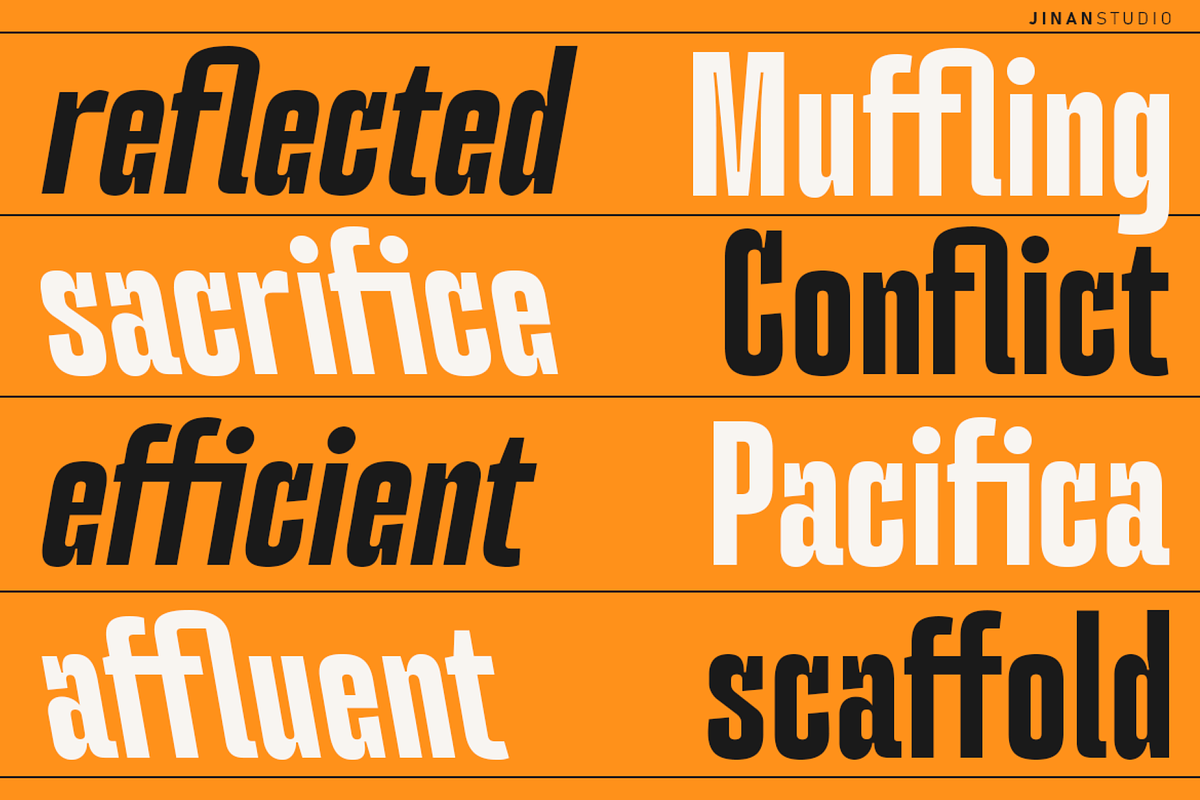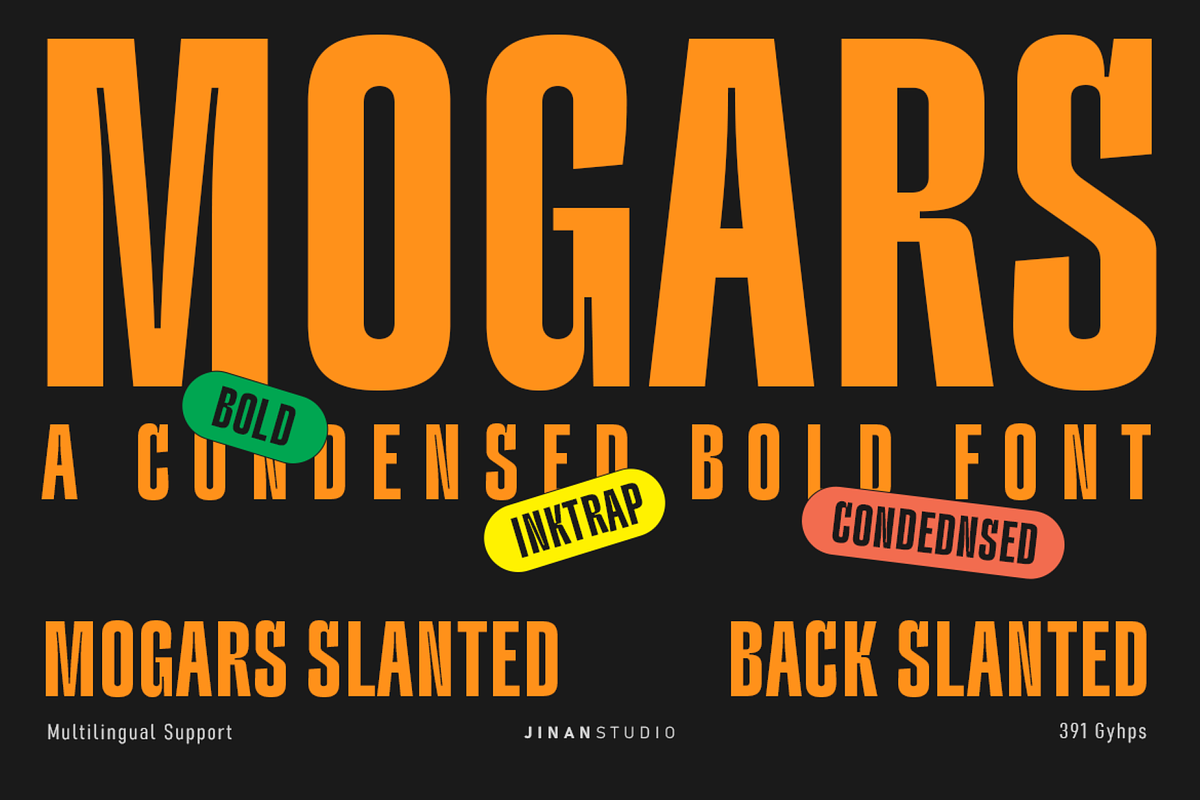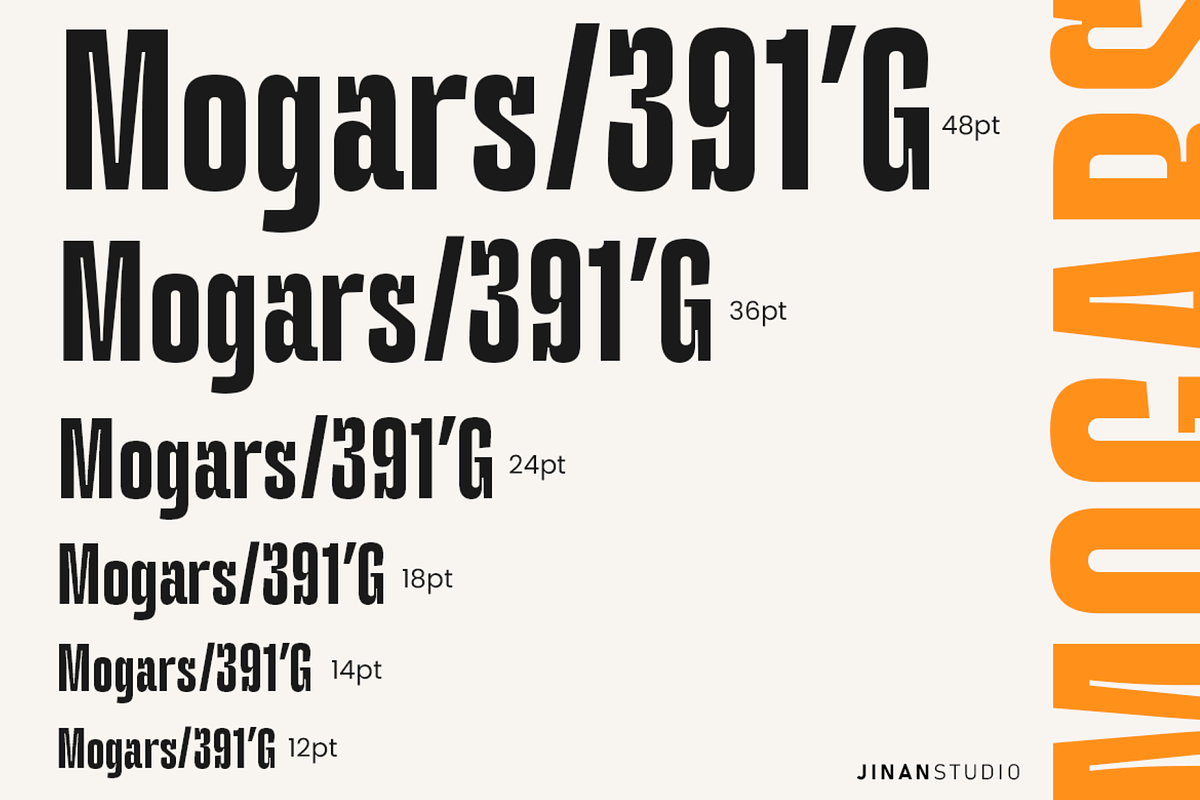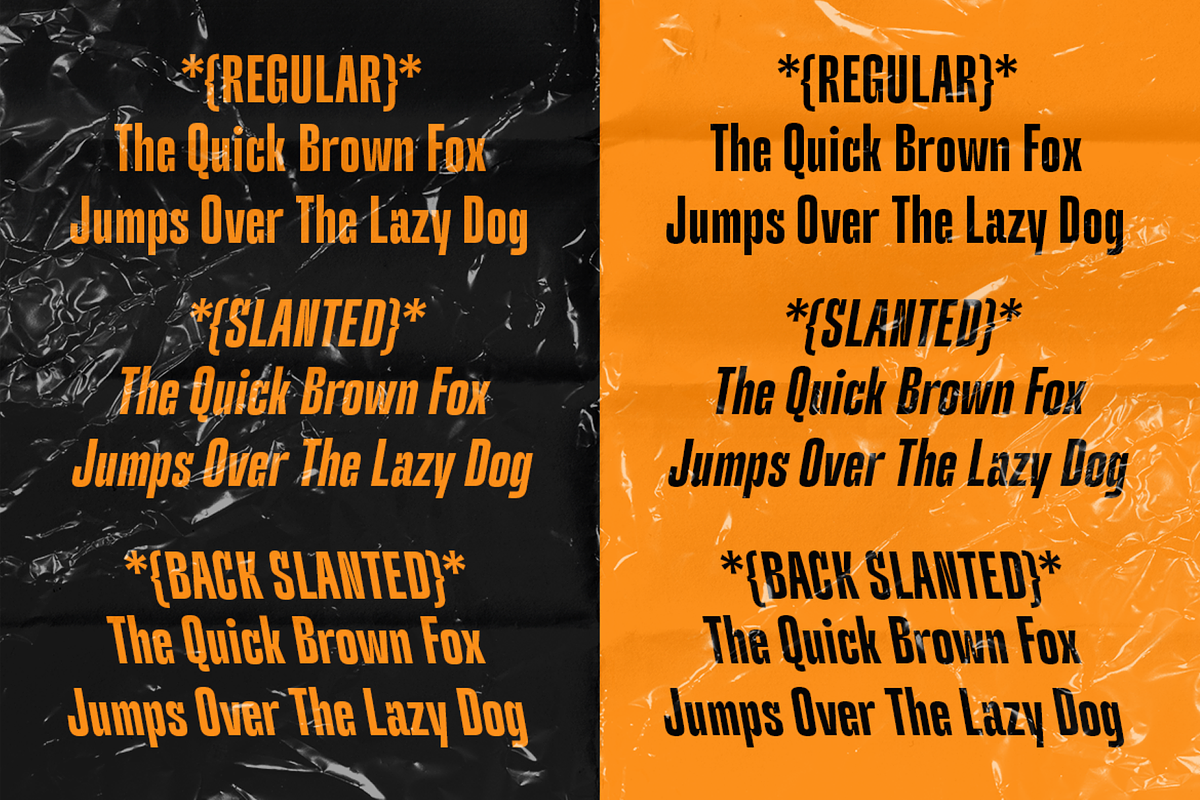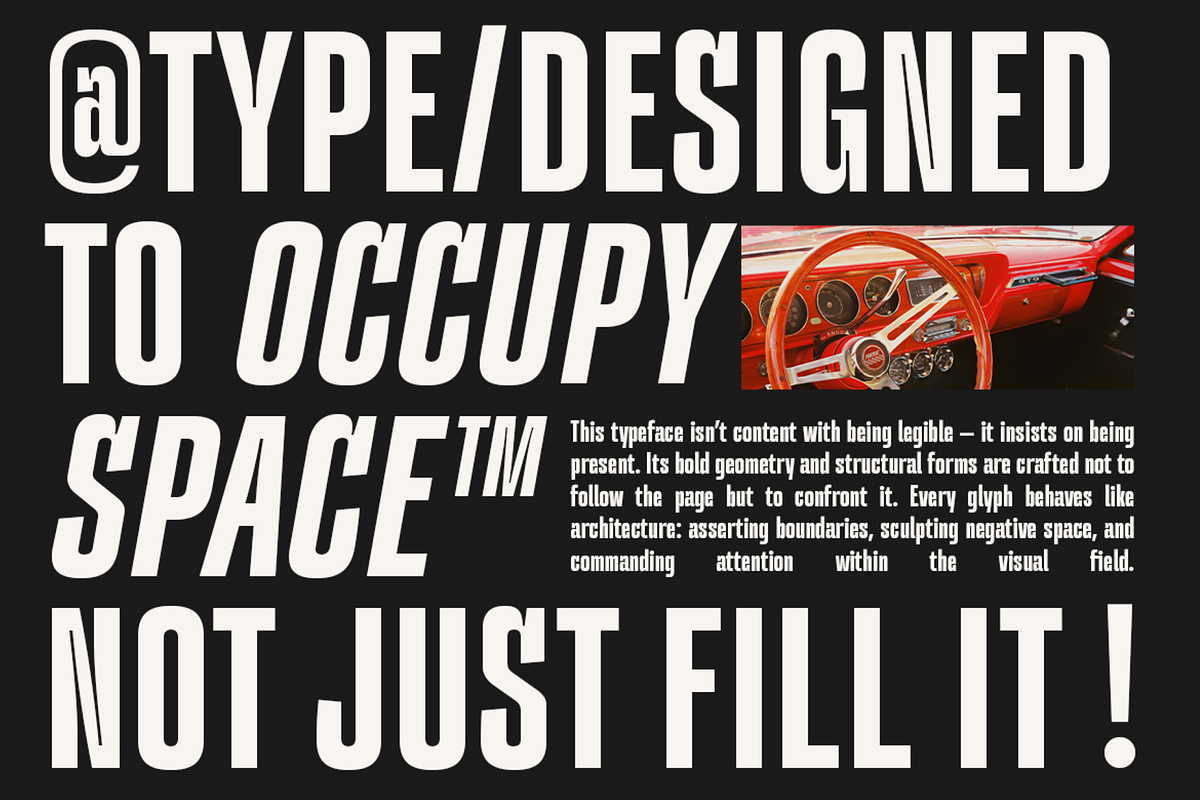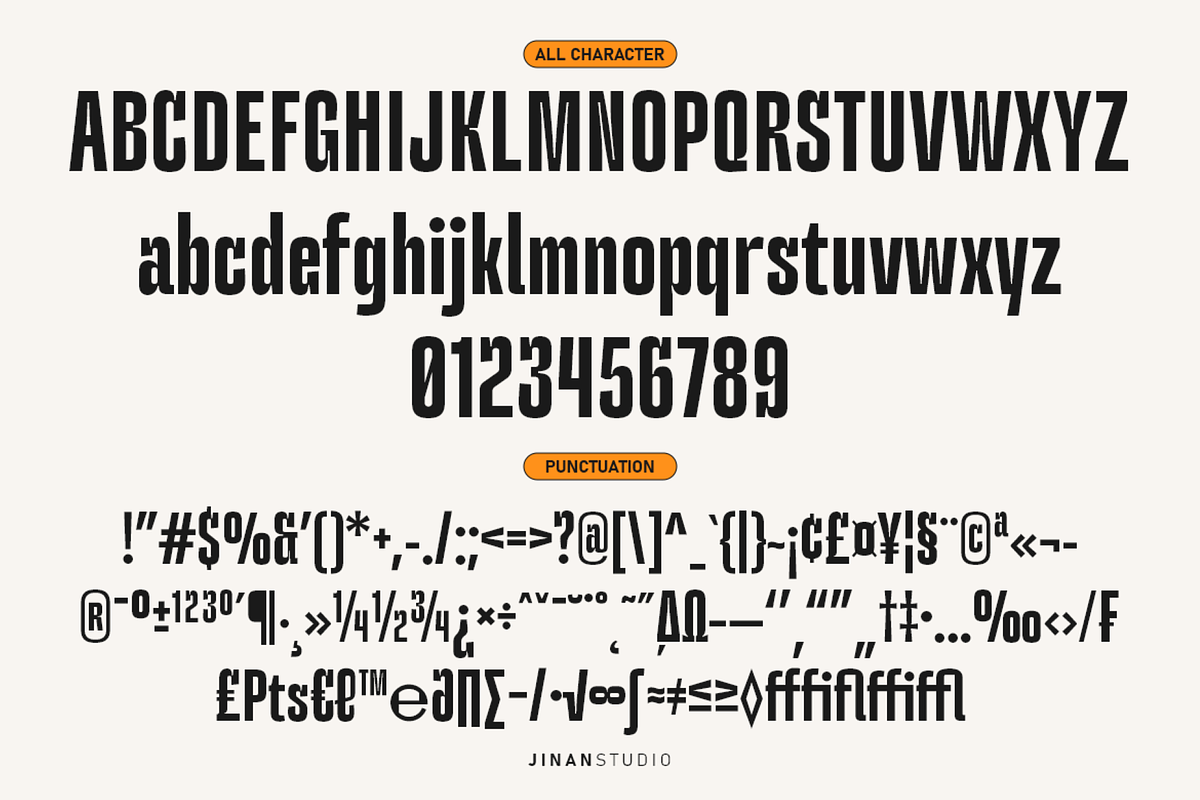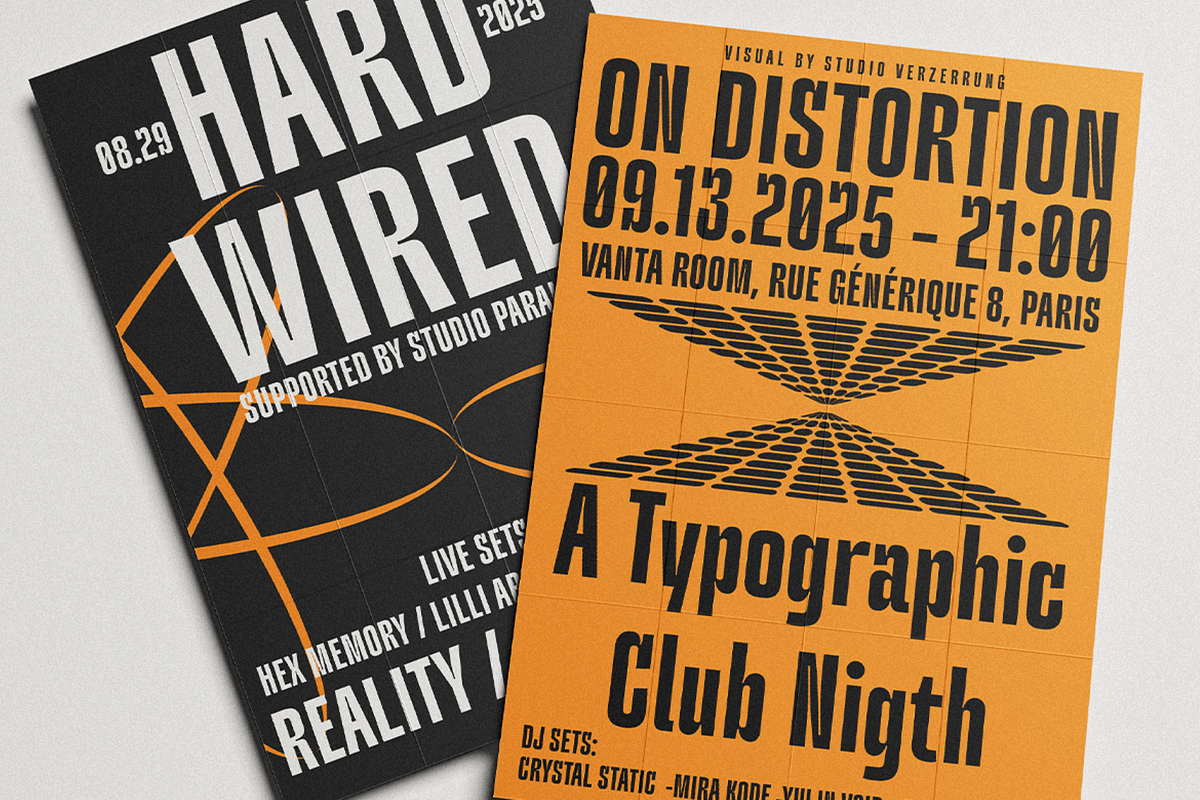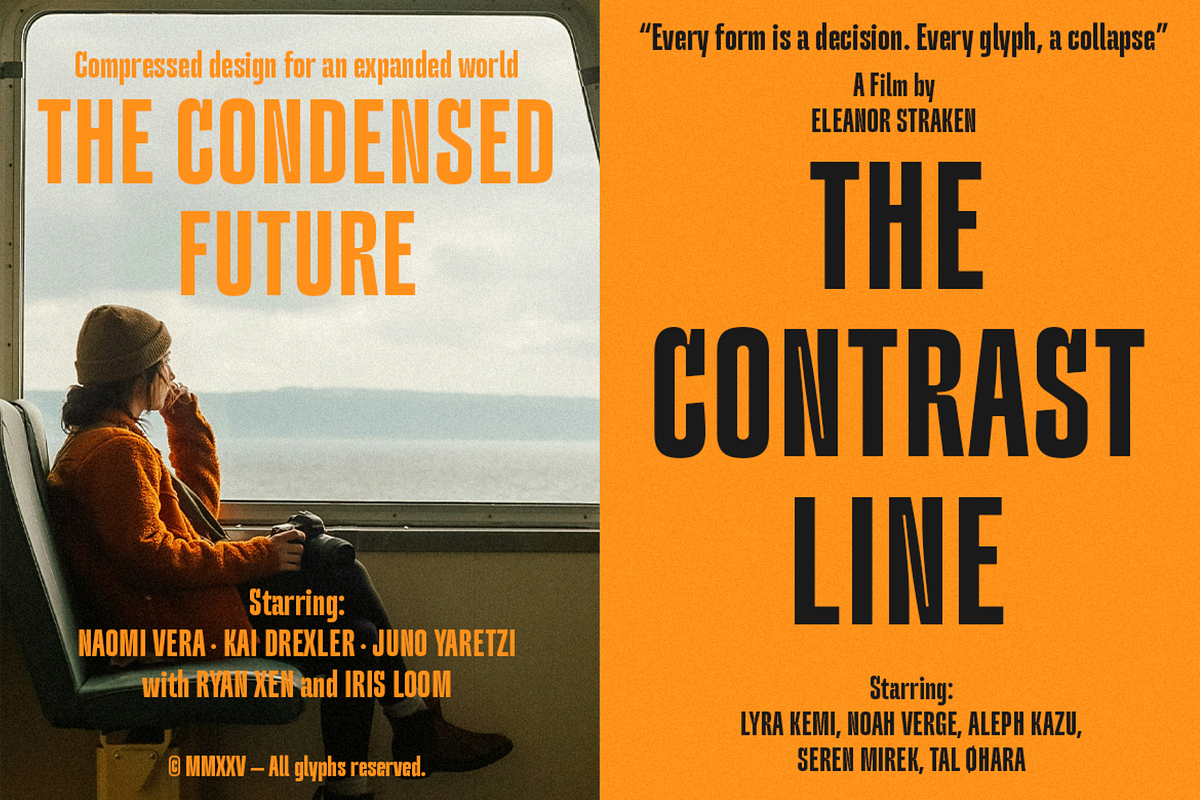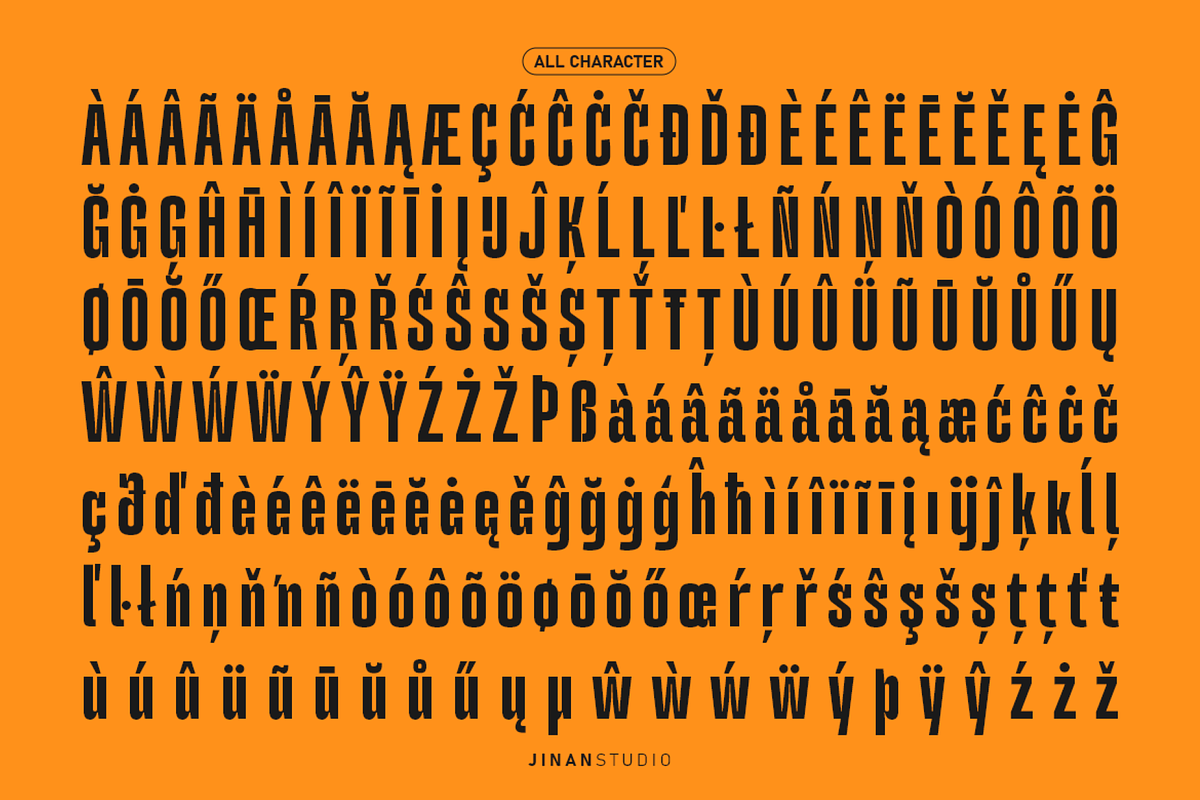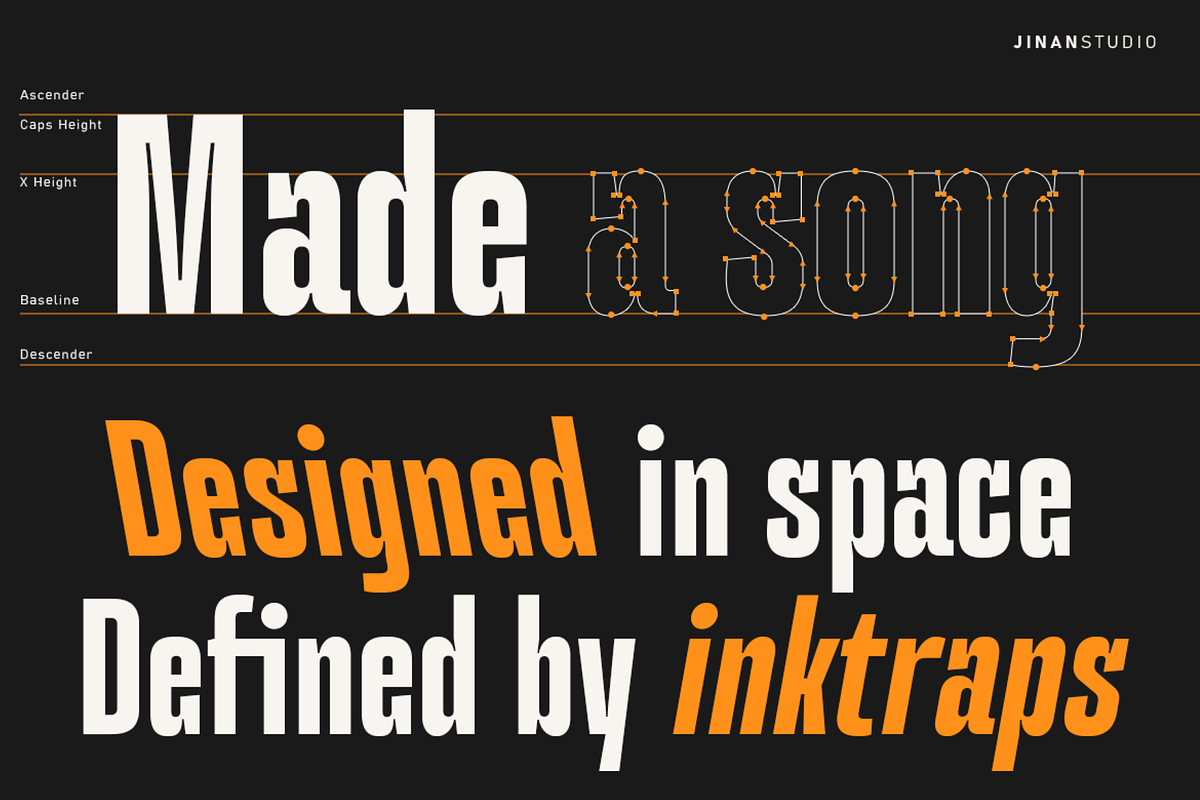
Mogars – A Condensed Sans Serif
Mogars is a condensed sans serif font that commands attention with its strong, powerful strokes and bold presence. Crafted for impact, Mogars brings a modern edge to headlines, posters, and branding projects that demand a confident voice.
With its tall and narrow letterforms, Mogars maximizes space without sacrificing style. It comes with extra slanted and back slanted styles, giving you dynamic flexibility for a more expressive typographic layout. Whether you're creating editorial titles, bold packaging, or stylish logos, Mogars delivers a clean, assertive aesthetic that stands out.
- A set of uppercase and lowercase glyphs
- Number, symbol, and punctuation
- Some Alternates and Ligatures
- Slant and Backslant Version